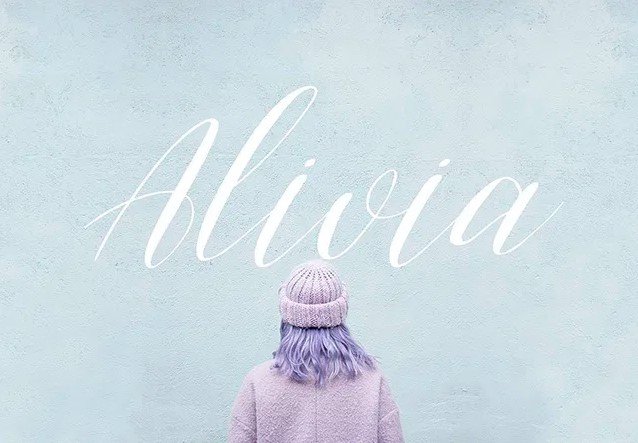
We are here today to introduce the perfect handwriting typeface, featuring the latest designs and eye-catching textures. The Alivia Script Font boasts a classic and distinguished texture, making it ideal for printed designs and book covers.
Of course you can use the Alivia Script for your logo as well as all other graphic designs projects.